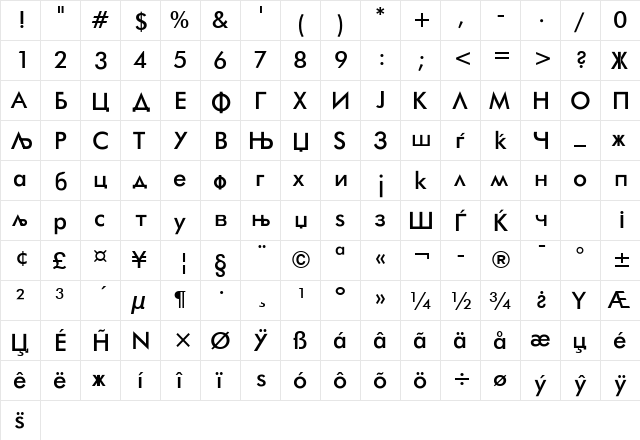
TVSkopje Normal
| Foundry | (c) Geri |
| Designer | Geri |
Design Context for TVSkopje Typeface
TVSkopje takes a measured approach to typography — its balanced proportions and neutral character make it a reliable workhorse for both digital and print work.